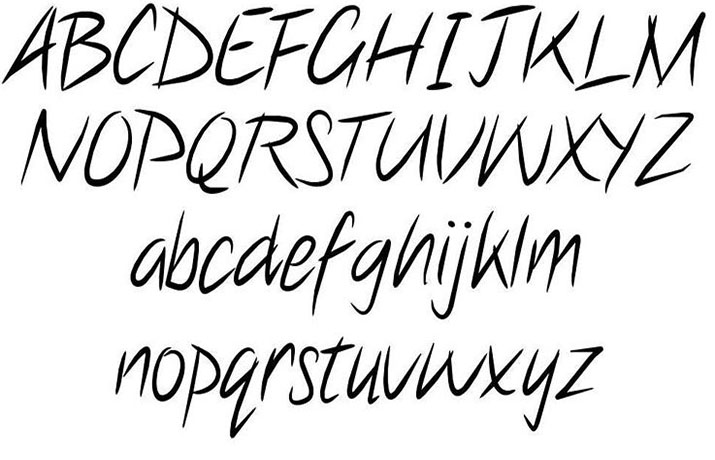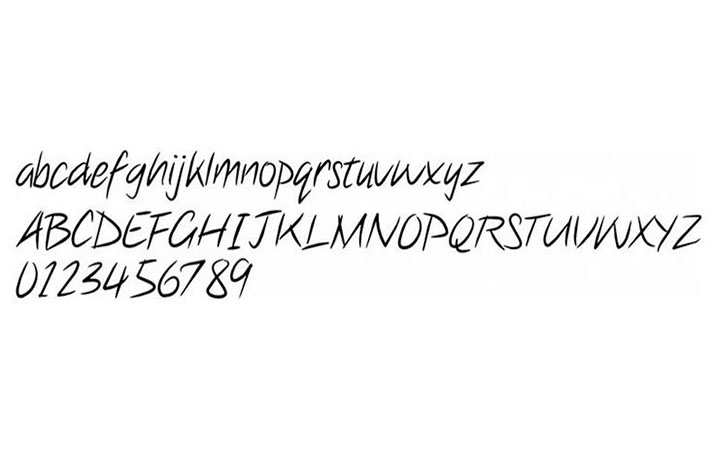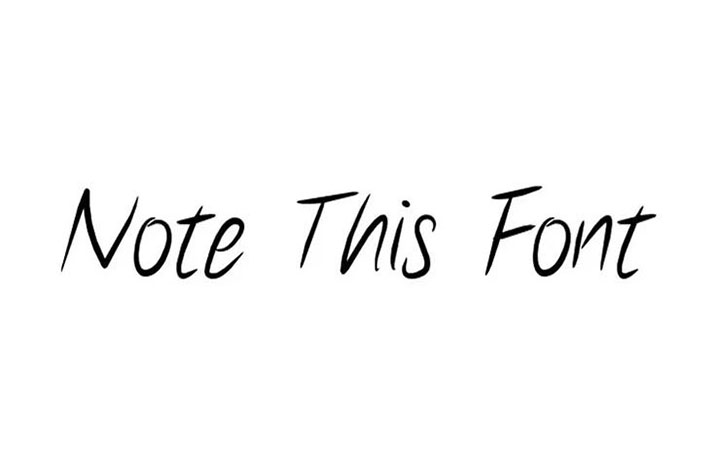
Note This Font is a script handwritten typeface that has playful brushstrokes and a whimsical look. West Wind Fonts took charge of designing and sharing it in 2001.
You will feel a real handwritten look because the designer has crafted it with irregular spacing and slightly imperfect strokes. So, if you want to create something new and interesting then it will definitely be beneficial for you.
You can use it for various purposes such as branding, invitations, headings, quotes, signs, social media posters, headers, flyers, birthday cards, comics, website design, and social media posts. So, you can try it out.
“Note This typeface has come in a single style that possesses Truetype features. And this single style has 181 glyphs as well as 184 number of characters.”
- You will be able to develop fantastic designs with the aid of this remarkable font due of its roughness. Special quotes, taglines, t-shirt printing, birthday cards, invitations, book covers, game graphics, kid-friendly features, product designs, labels, birthday cards, special event cards, headers, social media banners, and more are a few examples.